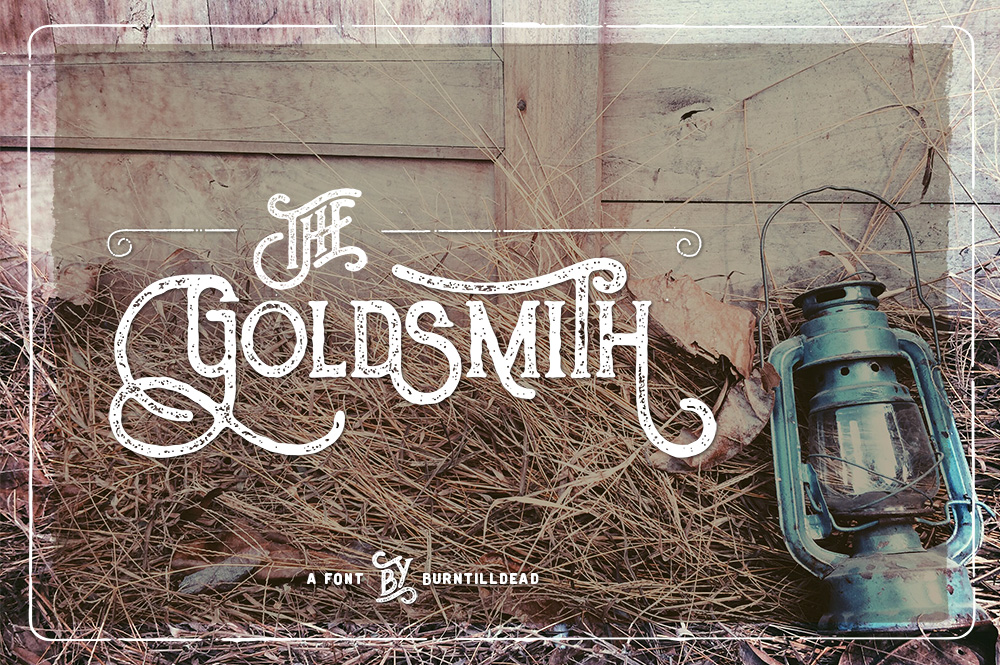
The Goldsmith Font
Dive into the mesmerizing world of The Goldsmith Font, a captivating serif masterpiece hand-crafted by Burntilldead. Experience the tactile charm of ink-textured glyphs, meticulously digitized and optimized to bring you a font of exceptional beauty and versatility.
The Goldsmith Font is not just a collection of letters; it's an invitation to elevate your designs with a touch of elegance and sophistication. Its intricate details and subtle variations capture the essence of traditional craftsmanship, while its modern sensibility ensures it remains timeless and relevant.
With its generous offering of alternate upper and lowercase characters, The Goldsmith Font empowers you to unleash your creativity. Explore endless possibilities as you mix and match, creating captivating headlines, alluring logos, and enchanting invitations that resonate with your audience.
The Goldsmith Font's global appeal extends far beyond the boundaries of language. Its comprehensive support for international languages ensures that your message transcends borders, connecting with a diverse audience and leaving a lasting impression wherever it goes.
Step into the realm of The Goldsmith Font and discover a font that's more than just a tool; it's an expression of artistry, a reflection of your unique style, and a gateway to design excellence. Let your imagination run wild as you craft visual masterpieces that captivate, inspire, and leave an indelible mark on the hearts and minds of your audience.